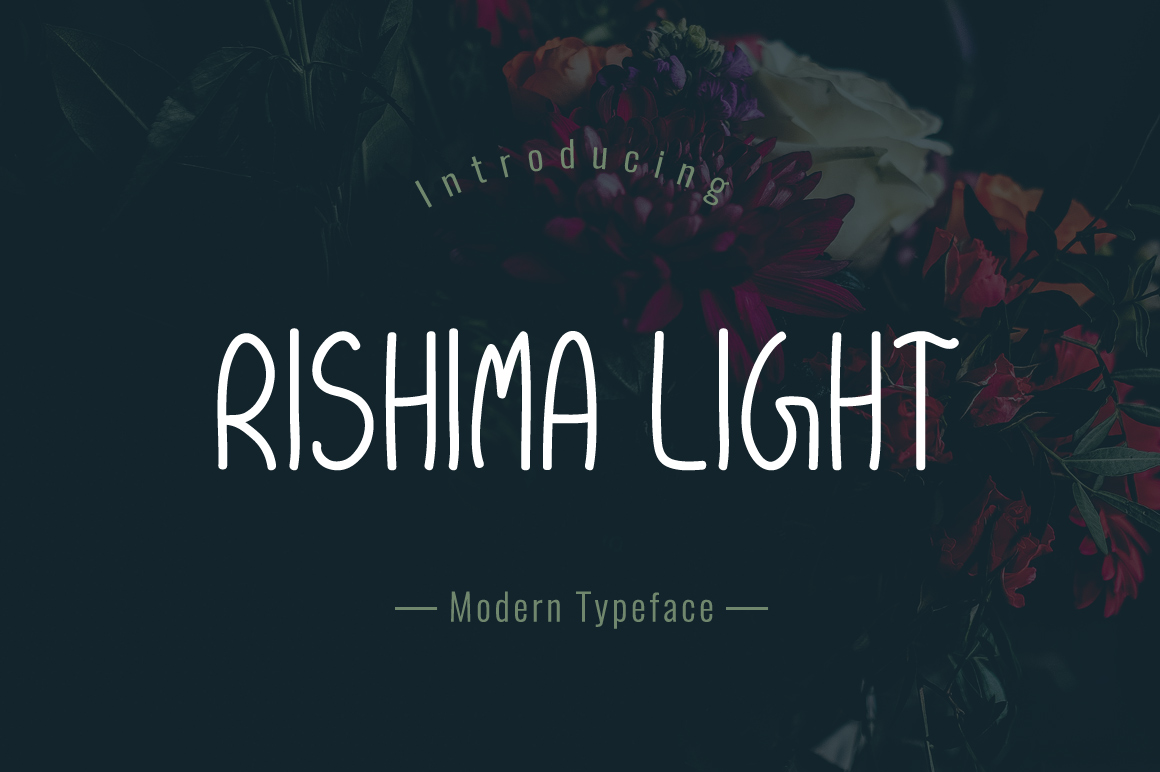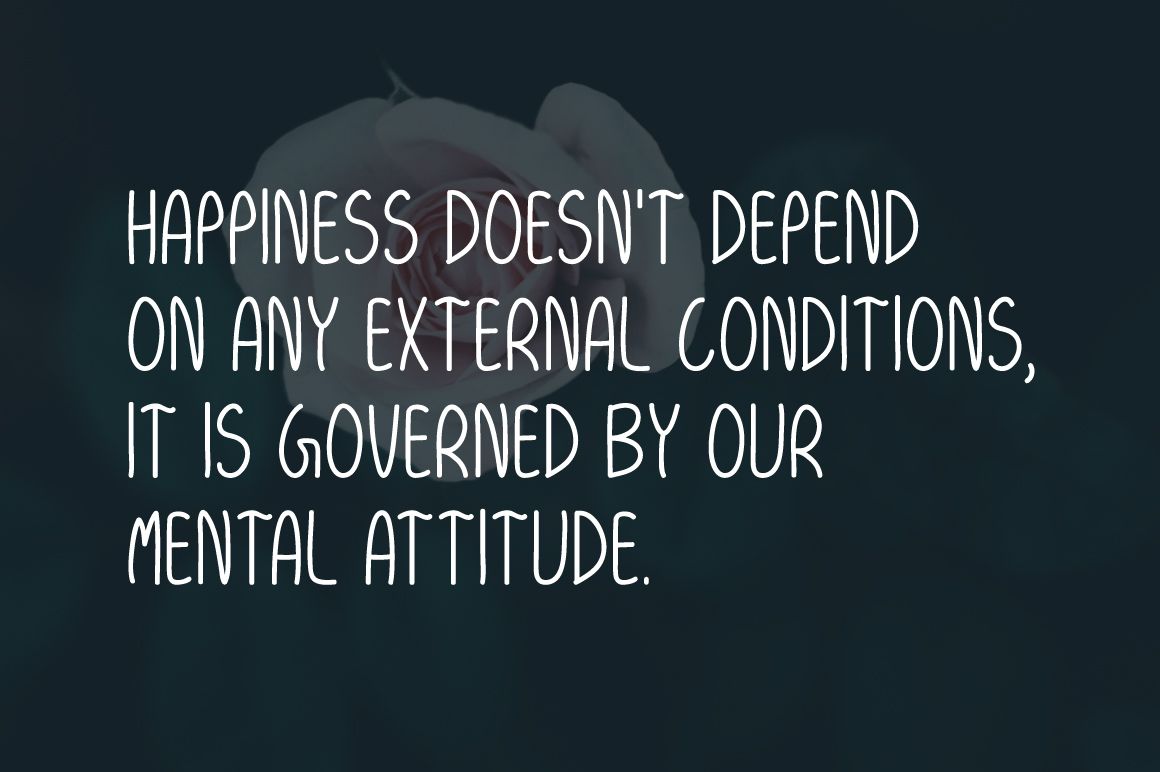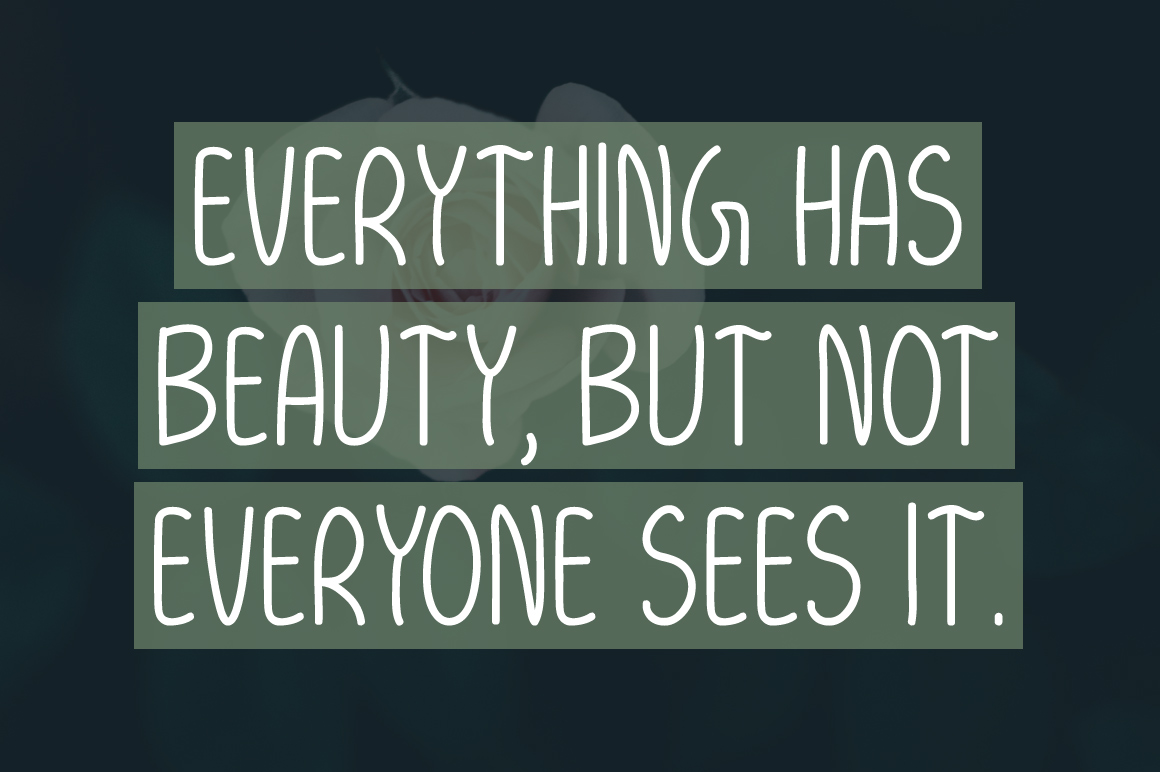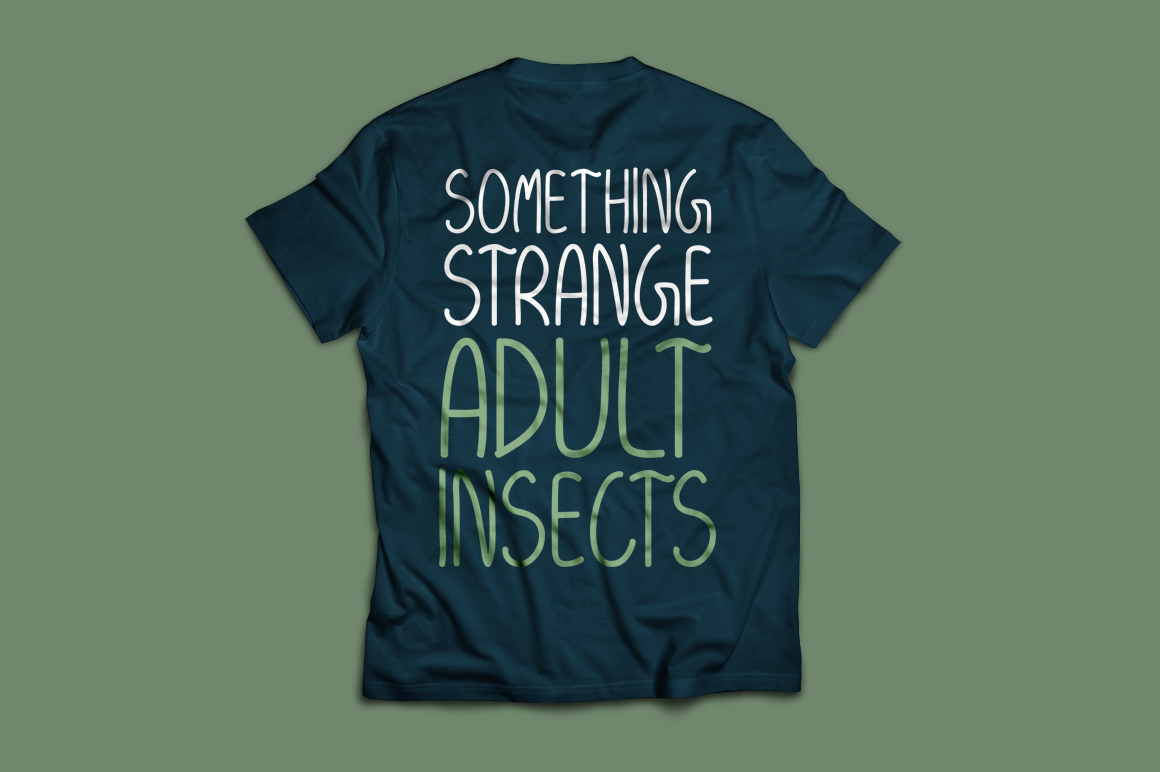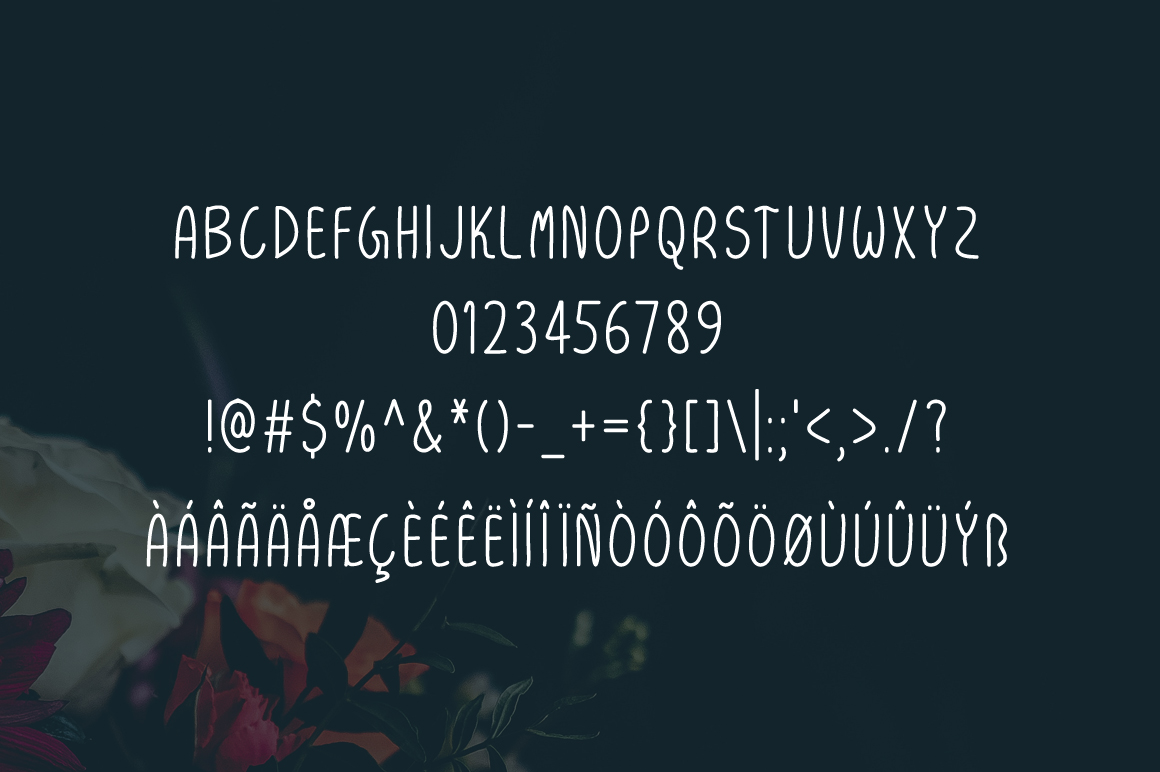
Rishima Light Font
About Rishima Light Font
Rishima Light is a gorgeous and subtle handwritten font, suitable for sleek designs and darker palettes. Rishima Light works well as a display, and can add a handcrafted charm to your designs.